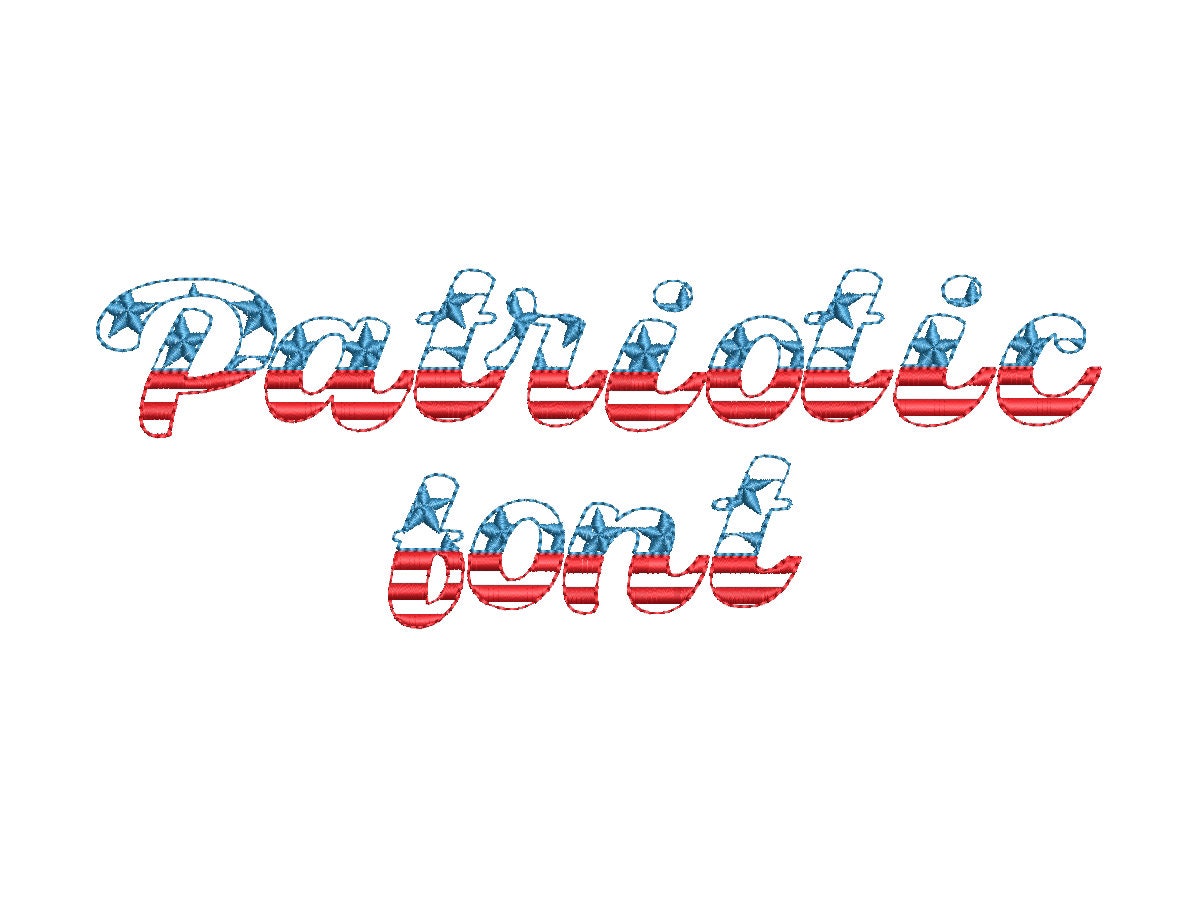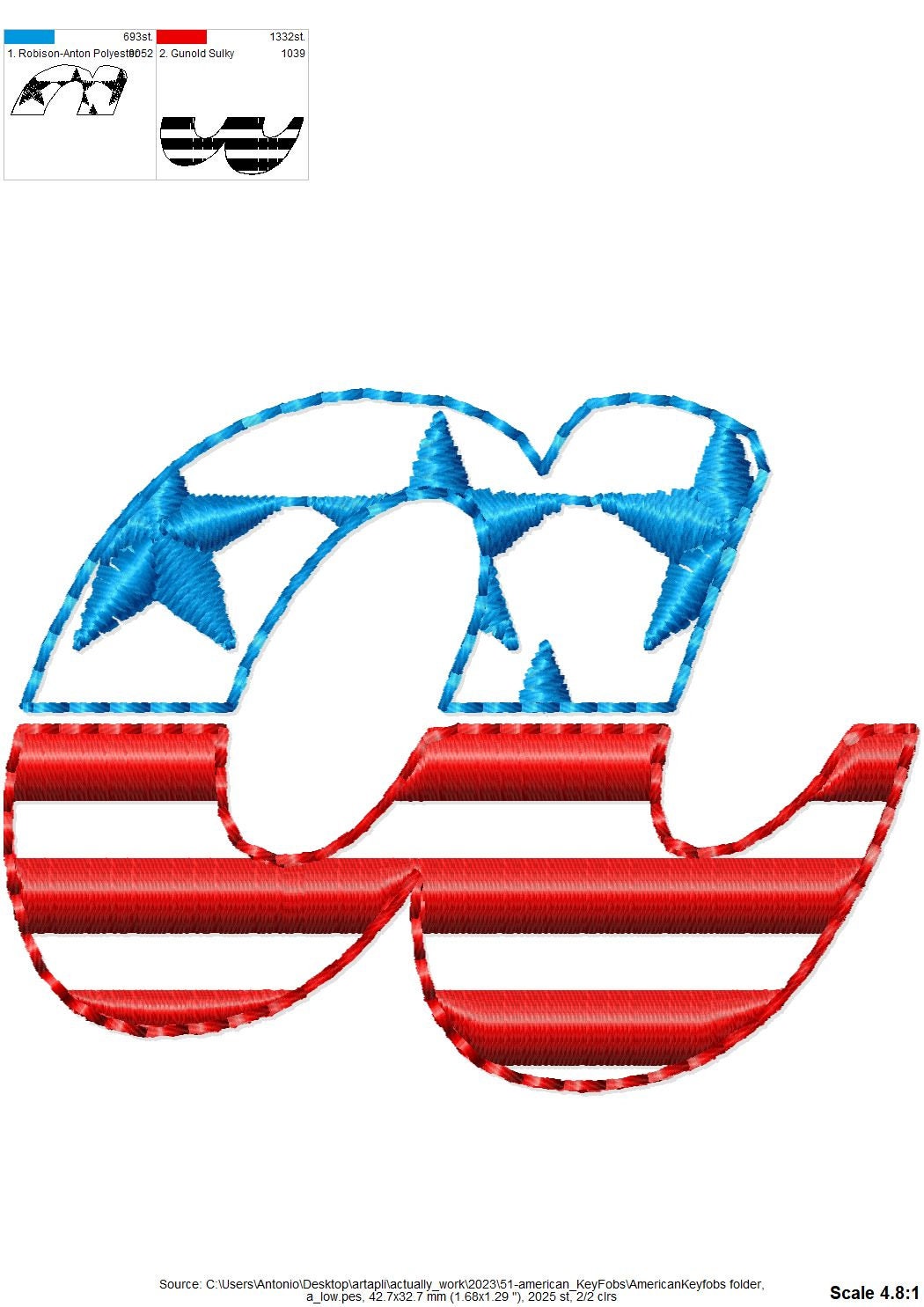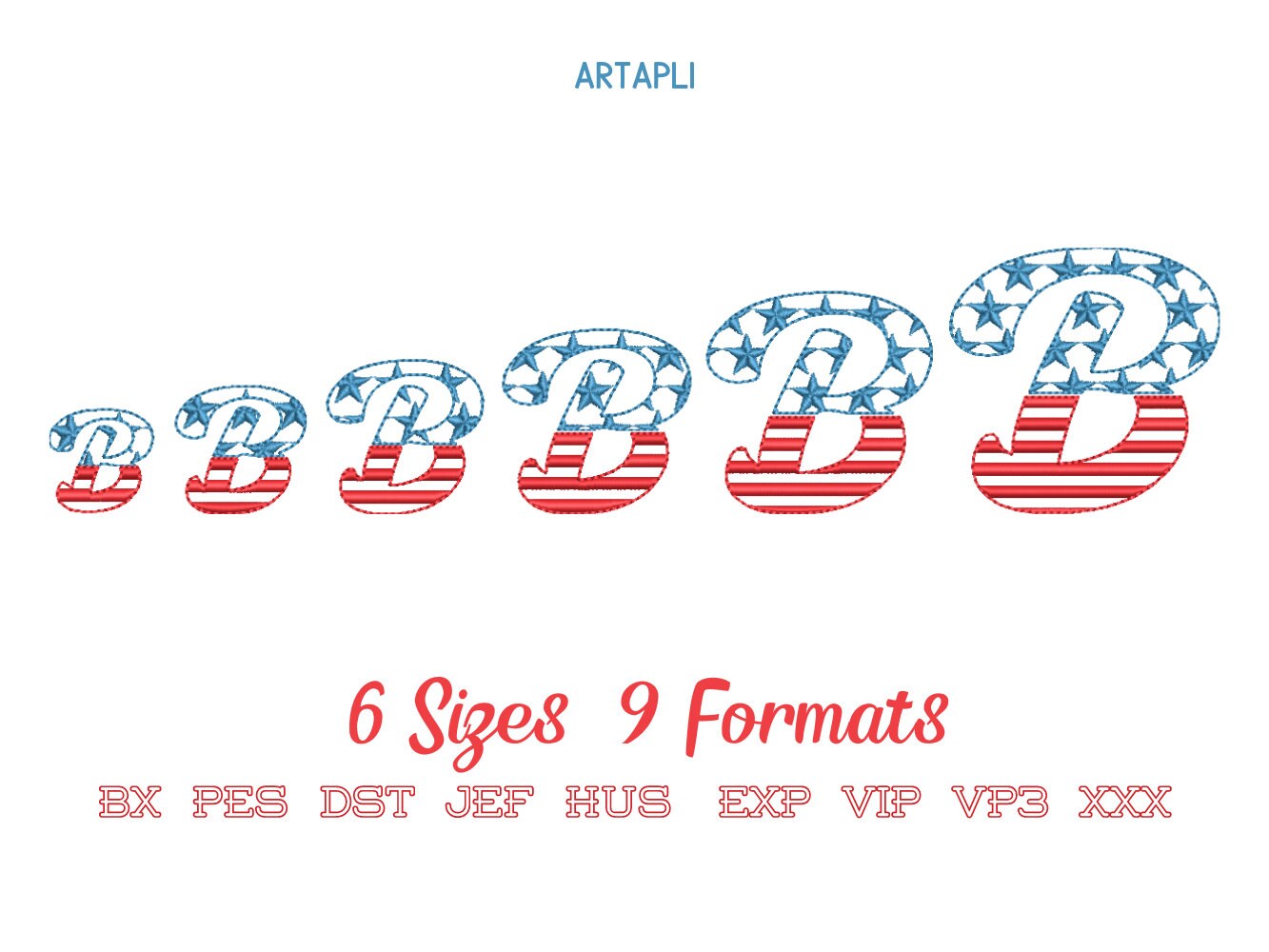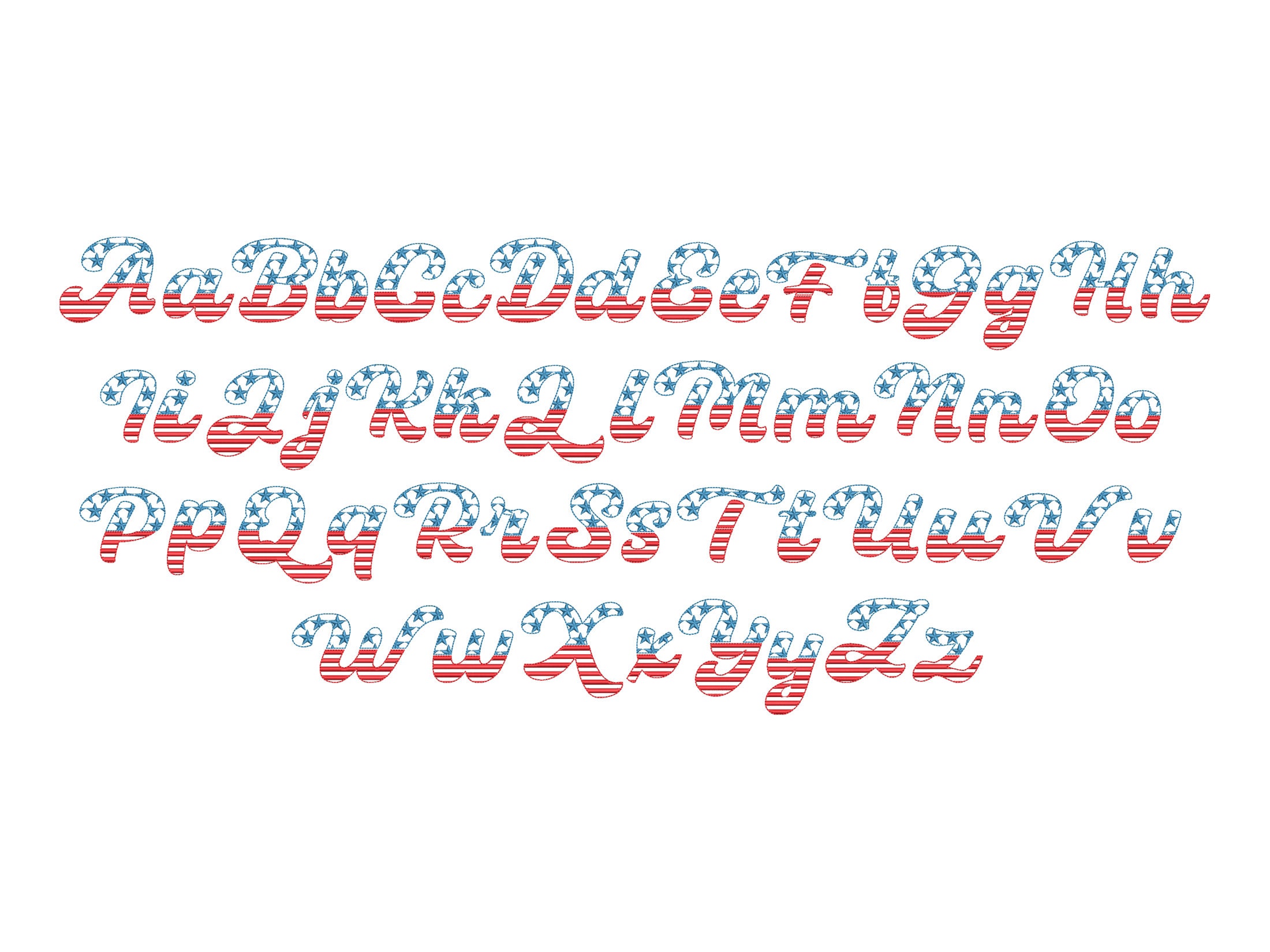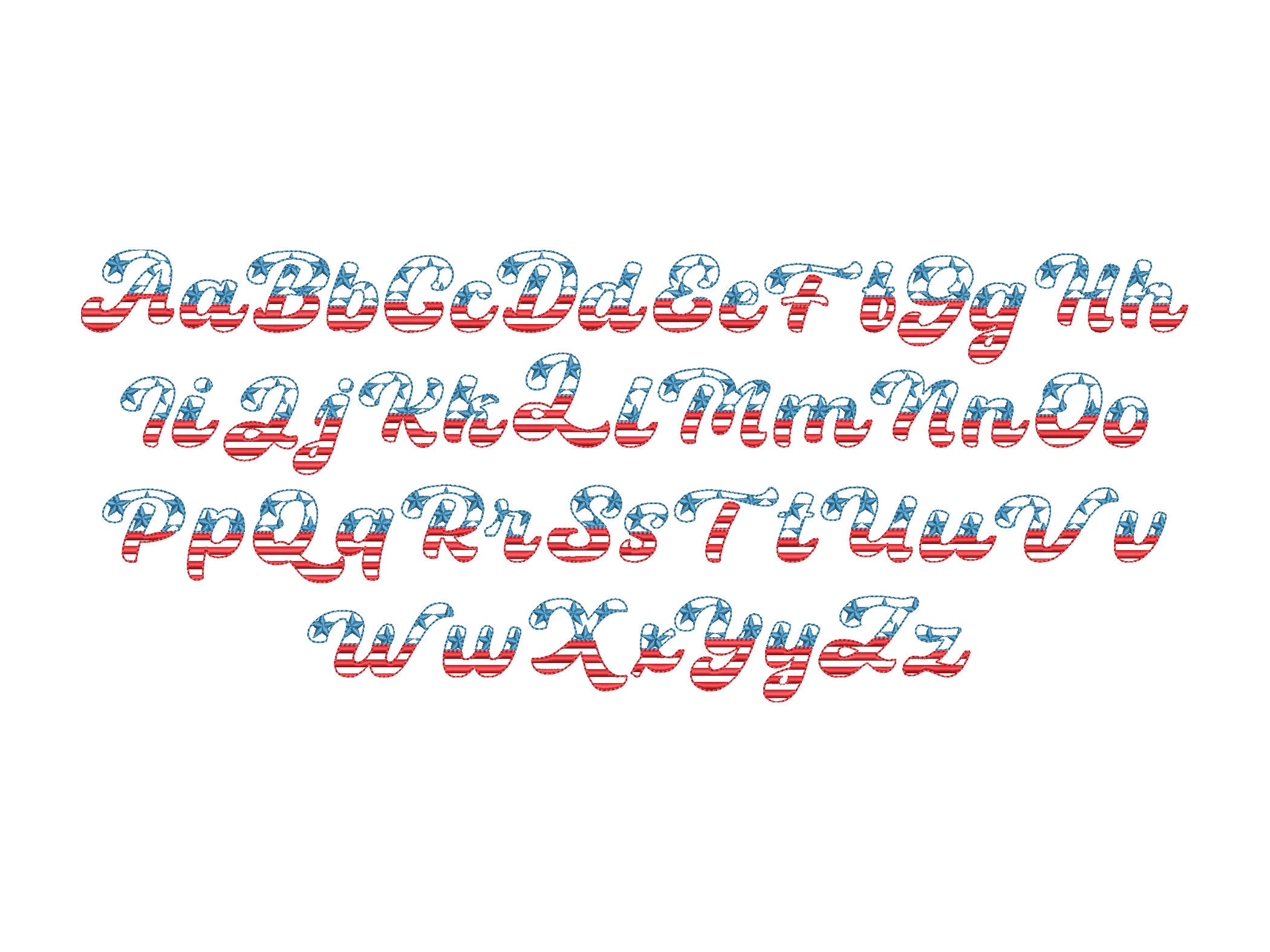
Patriotic cursive Font Stars and Stripes alphabet letters light stitch machine embroidery designs monogram letters 4th July Independence Day
This is a light stitch font. The background fabric looks through. Stunning effect!
Uppercase and lowercase letters Aa-Zz.